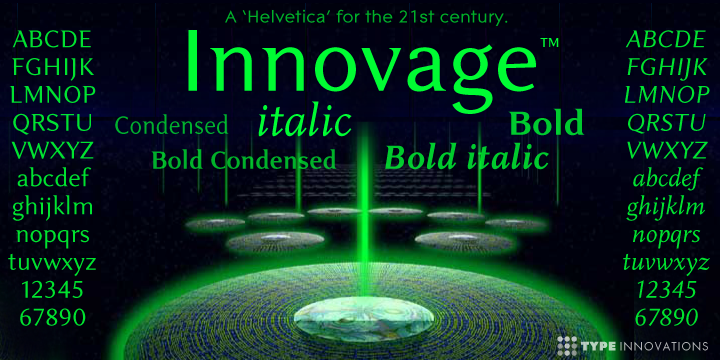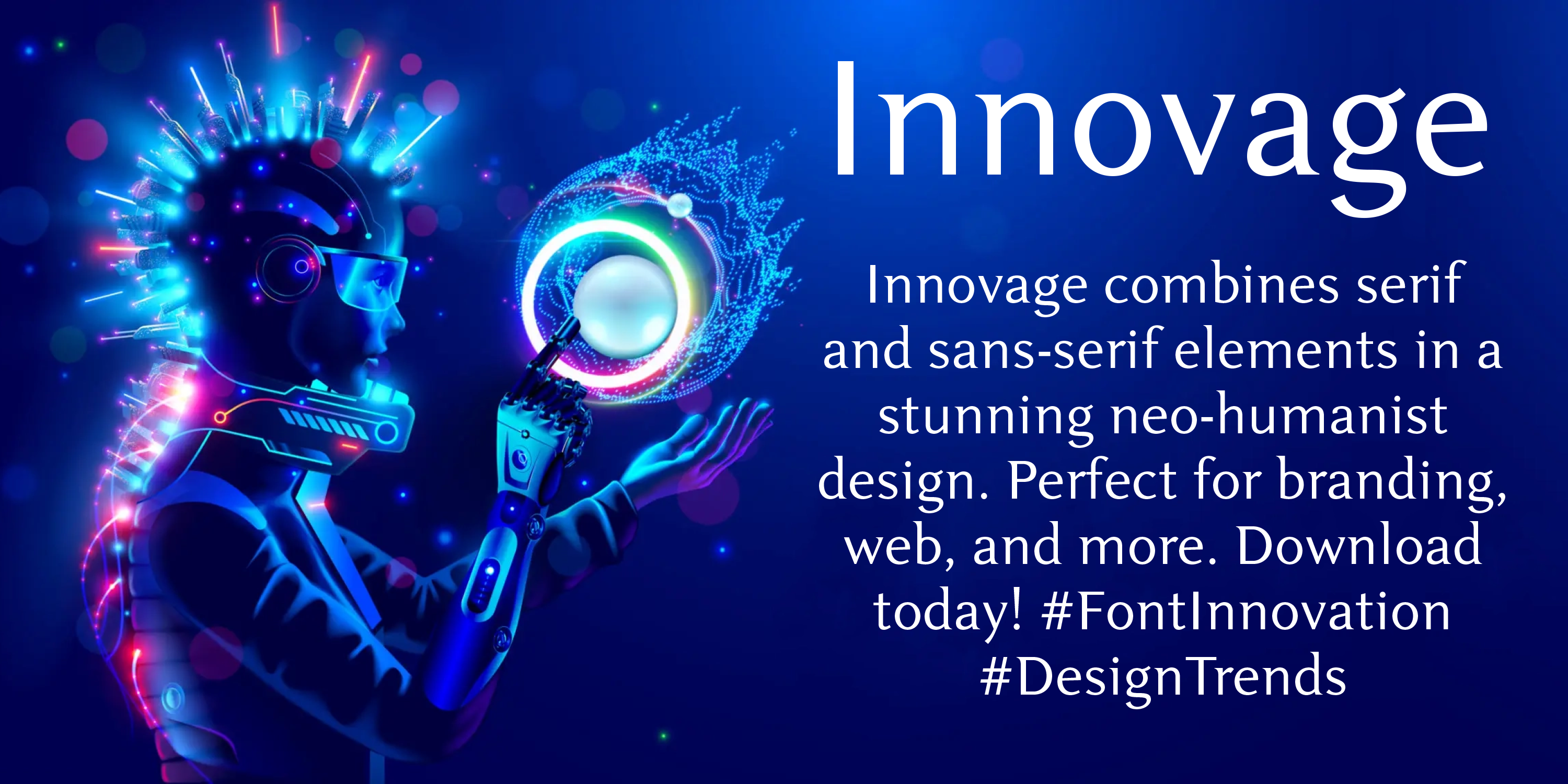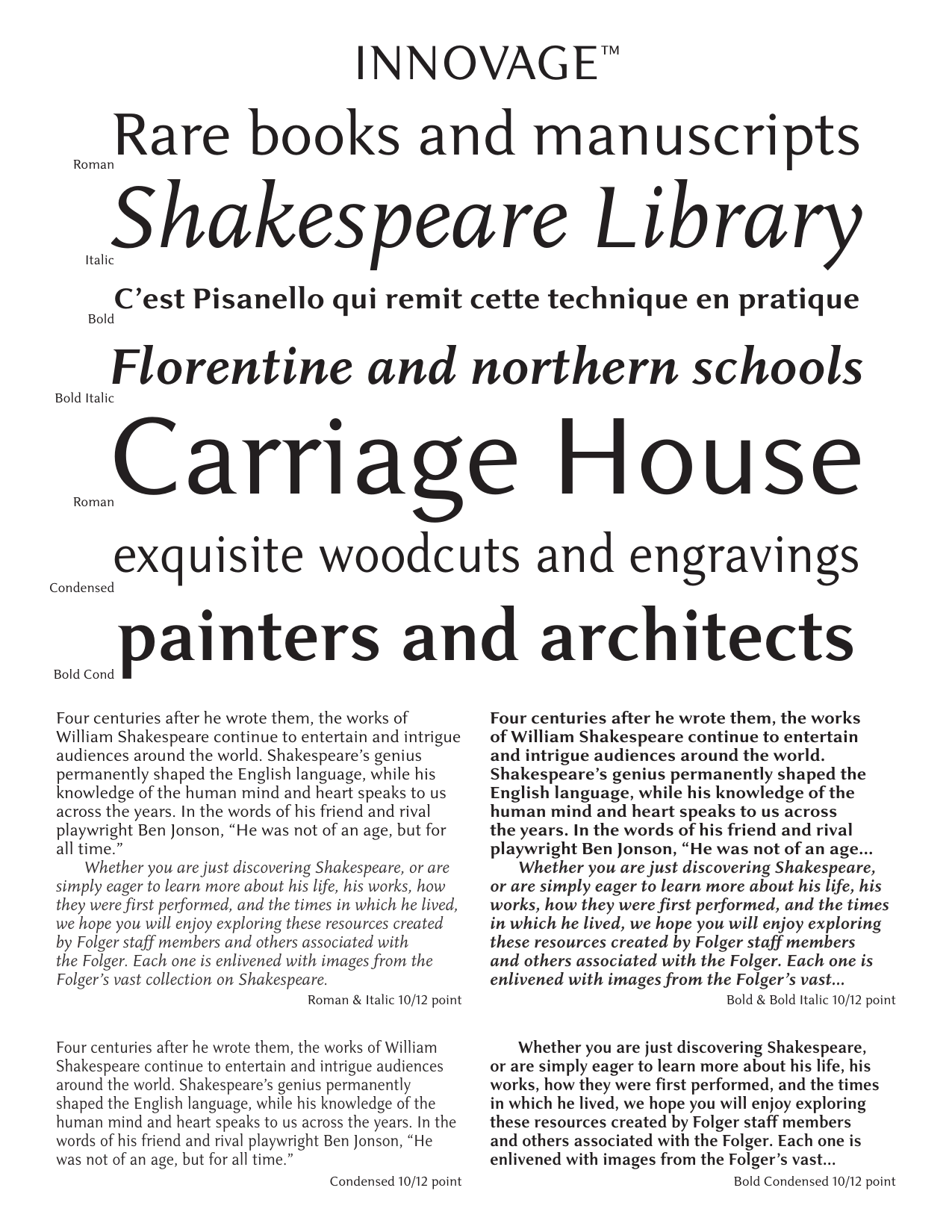
Innovage Collection
Innovage
Regular Italic Bold Bold ItalicInnovage Condensed
Regular BoldCreating a combination between serif and sans serif typefaces—Innovage is the best of both worlds, resulting in a unique and modern neo-humanist font family.
Innovage also works beautifully alongside other serif and sans serif typefaces giving complex editorial work a more powerful and visually stimulating dynamic. Details include six coordinating fonts, a full European character set, manual kerning, spacing, and ligatures.
Innovage is a contemporary design based on generous proportions and clean, crisp lines.
A ‘Helvetica’ for the 21st century. Innovage makes for easy reading and is ideal for long lines of copy.